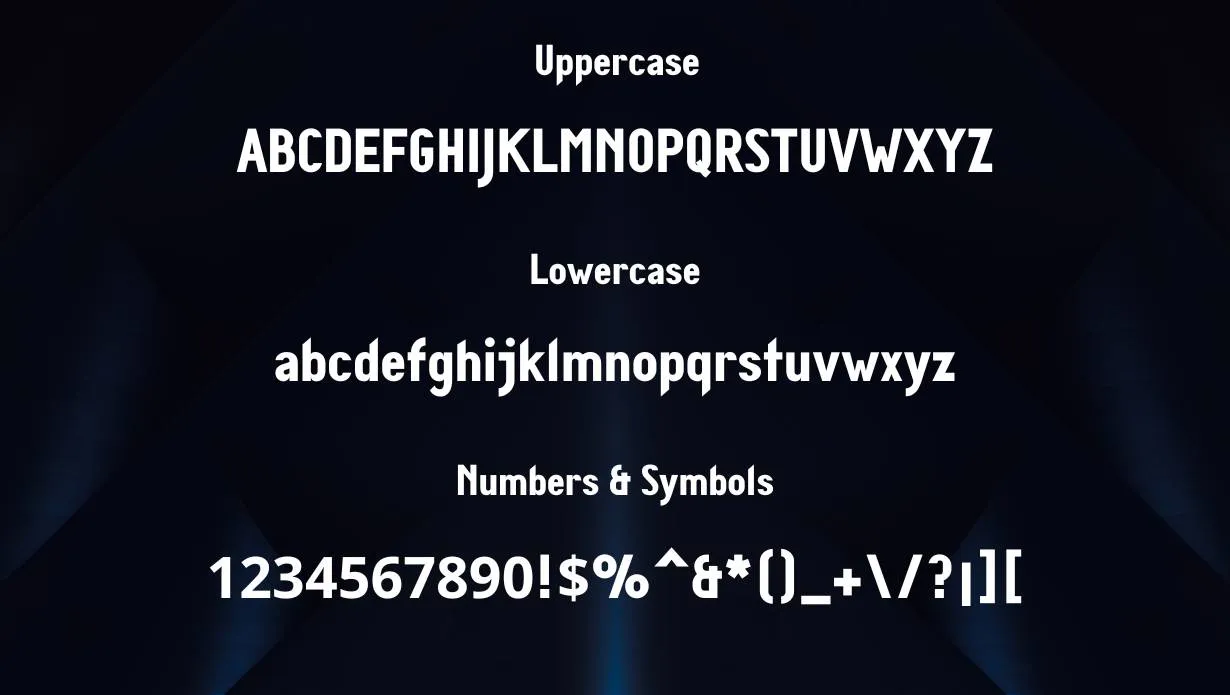
Diamante font is the sparkling gem in the world of typography, elevating your words to a luxurious level. Ideal for high-end product labels or glamorous event invitations, it brings a sense of opulence.
The rich and substantial weight of Diamante makes your words feel like precious jewels, and its luxuriously proportioned width ensures a grand appearance. Diamante is the font that adds a touch of grandeur to your most luxurious messages.